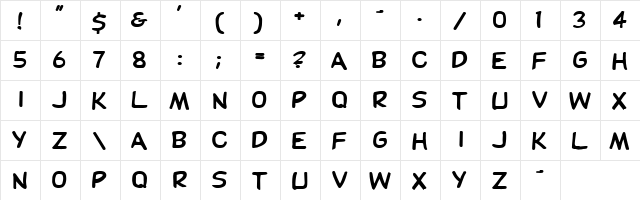
Pester 10 Regular
Design Context for Pester 10 Typeface
Pester 10 is a composed and adaptable typeface that performs quietly and consistently across a wide range of design contexts.